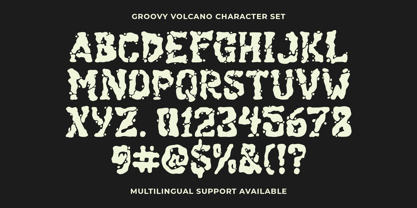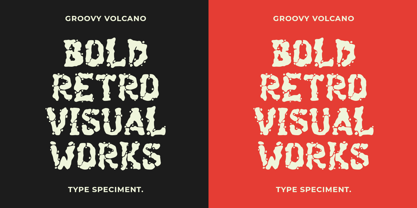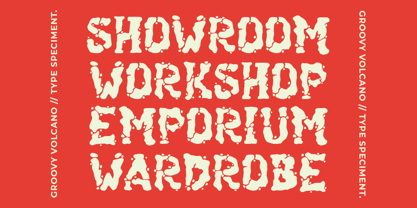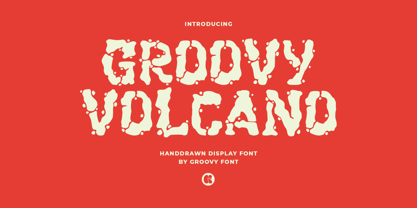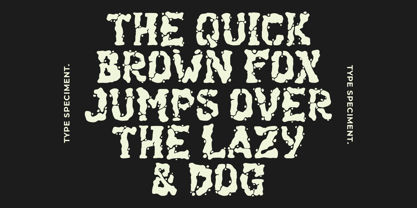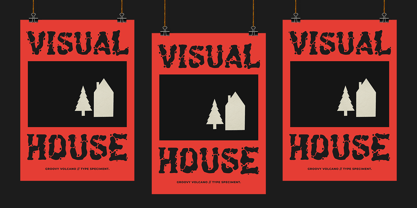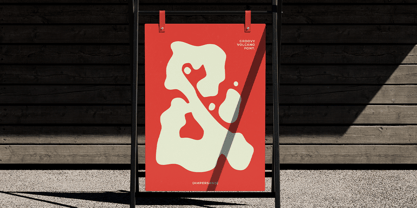
Groovy Volcano
by Groovy Font
The Groovy Volcano Font Family was designed by Ahmad Ginanjar Riyadi and published by Groovy Font. Groovy Volcano contains 1 styles. More about this family
Groovy Volcano is a hand-drawn display font that embodies the rough and rugged appearance of cracked rocks or weathered walls.
The font is ideal for creating eye-catching poster headlines and other design elements.
Designers: Ahmad Ginanjar Riyadi
Foundry: Groovy Font